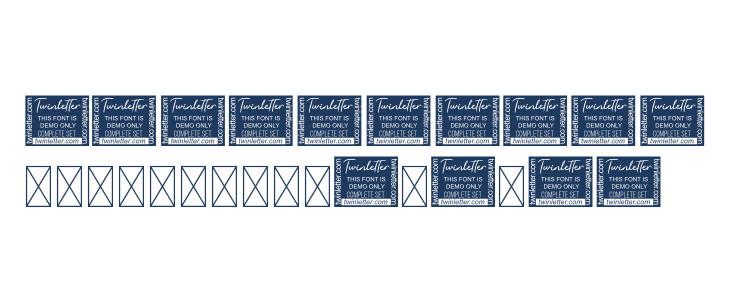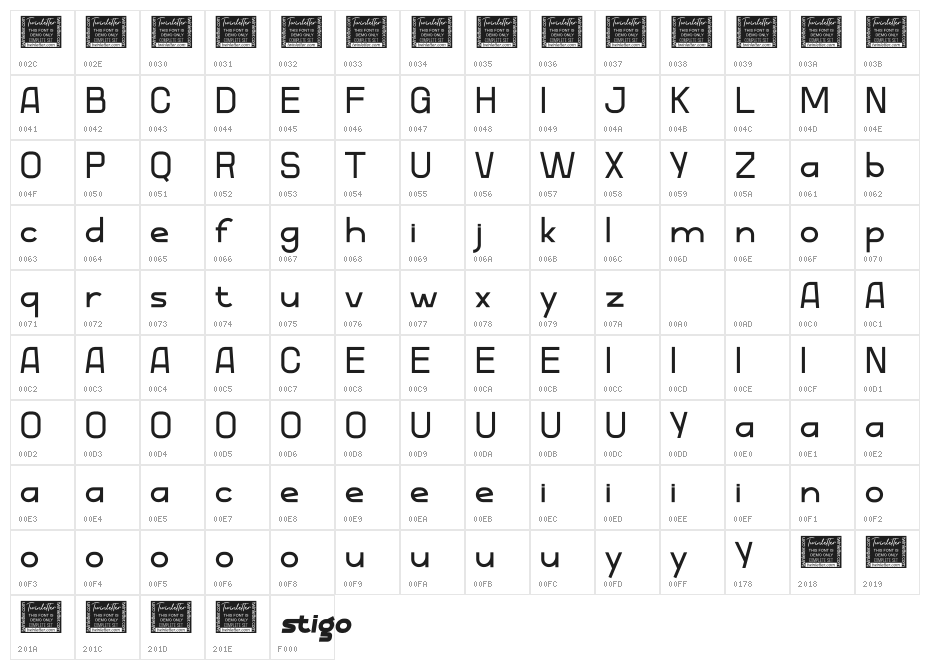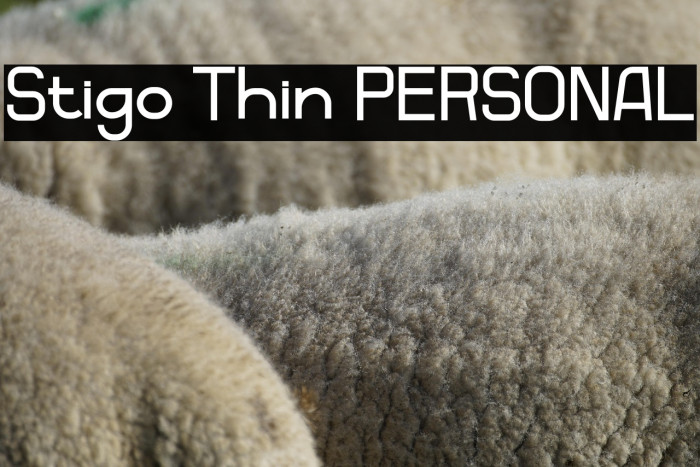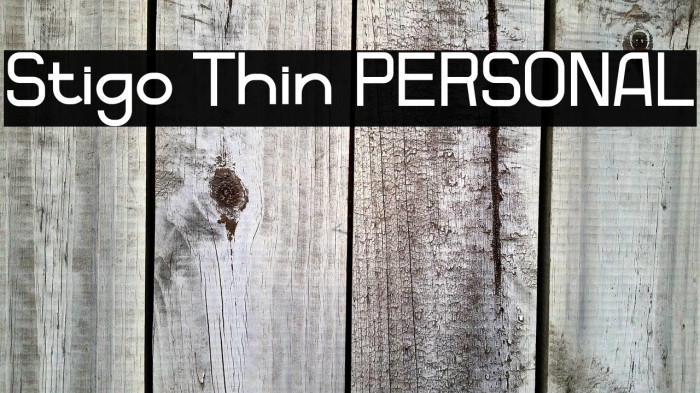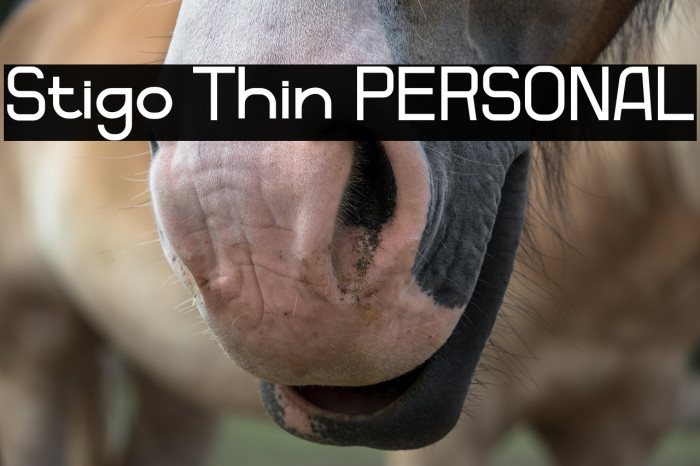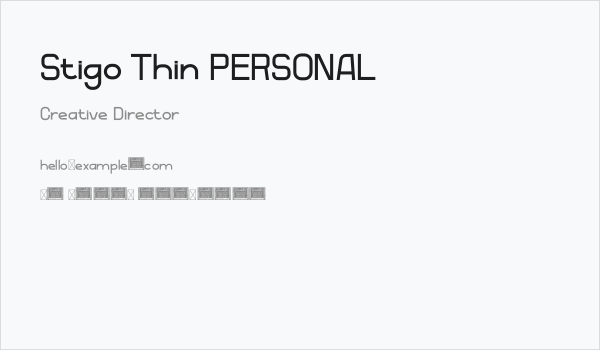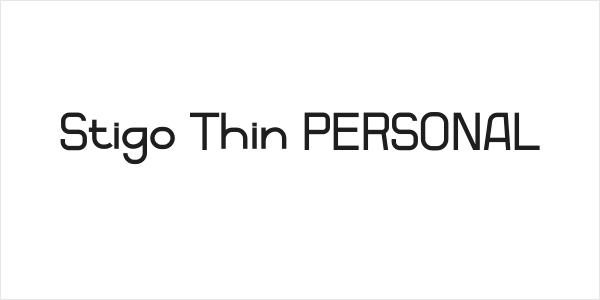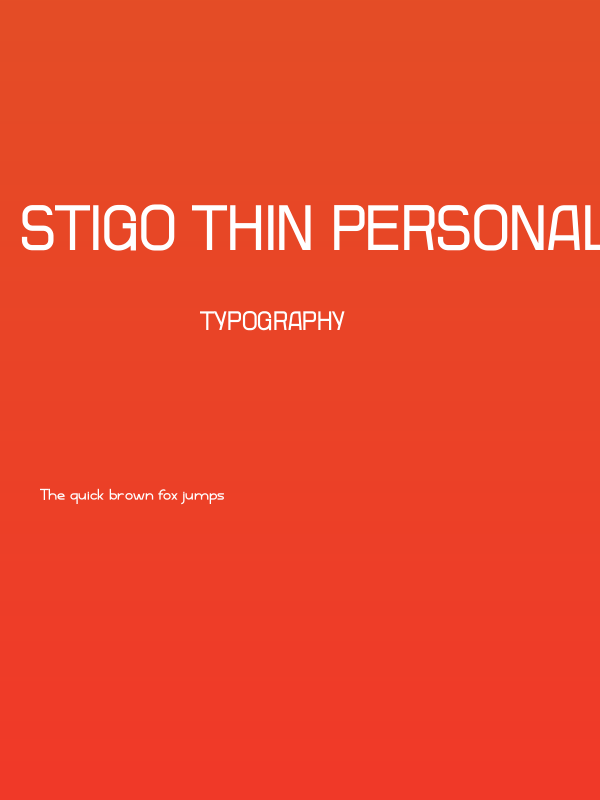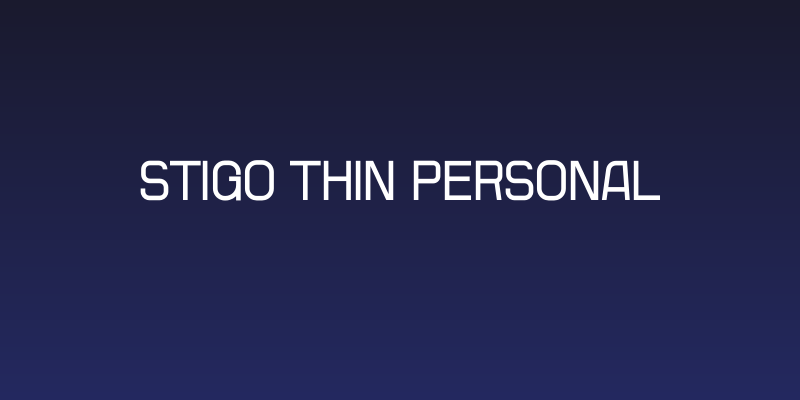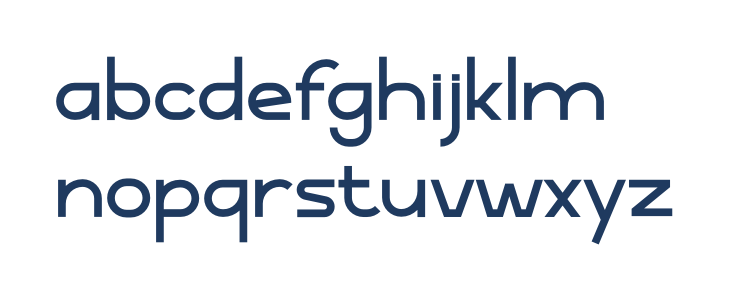
Stigo Thin PERSONAL Font
Stigo Thin PERSONAL Description
This font features a clean, geometric design with a modern aesthetic. The uppercase and lowercase letters are crafted with precision, showcasing a uniform stroke width that gives it a sleek and contemporary look. The characters are slightly elongated, contributing to a sense of elegance and sophistication. The font maintains a consistent baseline and x-height, ensuring readability and balance across all characters. Its minimalistic style is complemented by subtle curves and sharp angles, making it versatile for various design applications. The numerals and special characters are designed to match the overall style, providing a cohesive appearance.